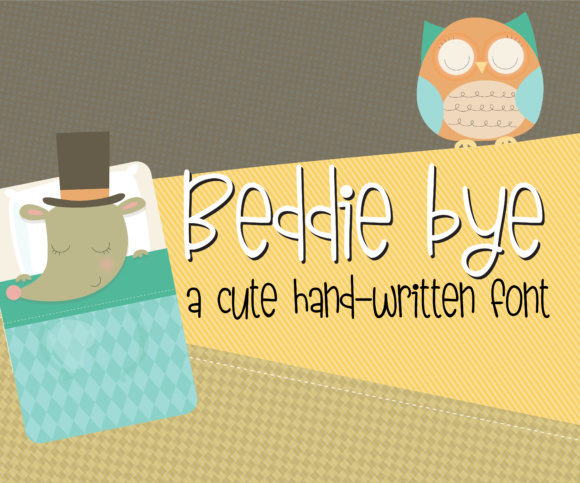
Enter the world of Beddie Bye Font, where whimsy intertwines with charm, leaving an imprint of delight on every design. This enchanting script font, crafted by the masterful hands at Illustration Ink, exudes a youthful exuberance that will elevate your projects to new heights.
Beddie Bye Font's spirited strokes are reminiscent of a child's imaginative penmanship, capturing the essence of spontaneity and joy. Its bouncy rhythm adds a touch of playfulness, while maintaining a level of legibility that ensures your messages shine brightly. Whether you're composing heartfelt letters, crafting whimsical invitations, or capturing the magic of storytelling, Beddie Bye Font will be your trusted companion.
Slip into the embrace of Beddie Bye Font's captivating style and watch as your creations blossom with personality. Its versatility knows no bounds, gracing both body text and headlines with equal charm. Let Beddie Bye Font be your font of choice when you seek to evoke laughter, spark joy, and leave a lasting impression.
Embrace the delight of Beddie Bye Font today and add a touch of enchantment to your digital world. It's more than just a font - it's an invitation to express your creativity and weave a tapestry of smiles.